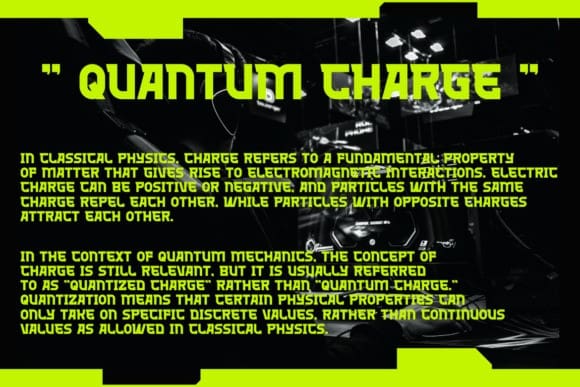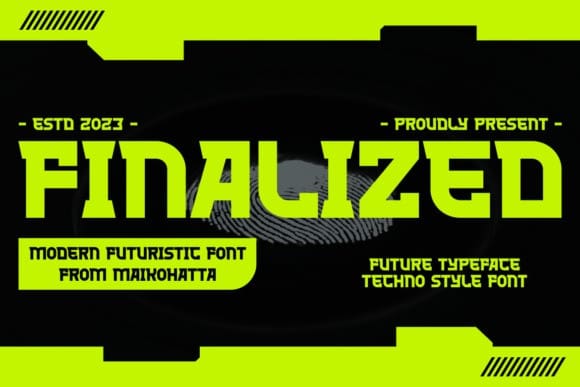
Finalized Futuristic Font
Finalized Futuristic Font is a modern futuristic display font. Finalized is a type of lettering that features a futuristic design inspired by advanced technology. This font reflects the digital era and technological advancements, bringing a sense of modernity, innovation, and energy to any design. With sharp lines, geometric letter shapes, and futuristic elements, this font is suitable for projects related to technology, robotics, science, and modern lifestyle. This modern font is often found in logos, website designs, posters, and other creative projects that require a futuristic touch.